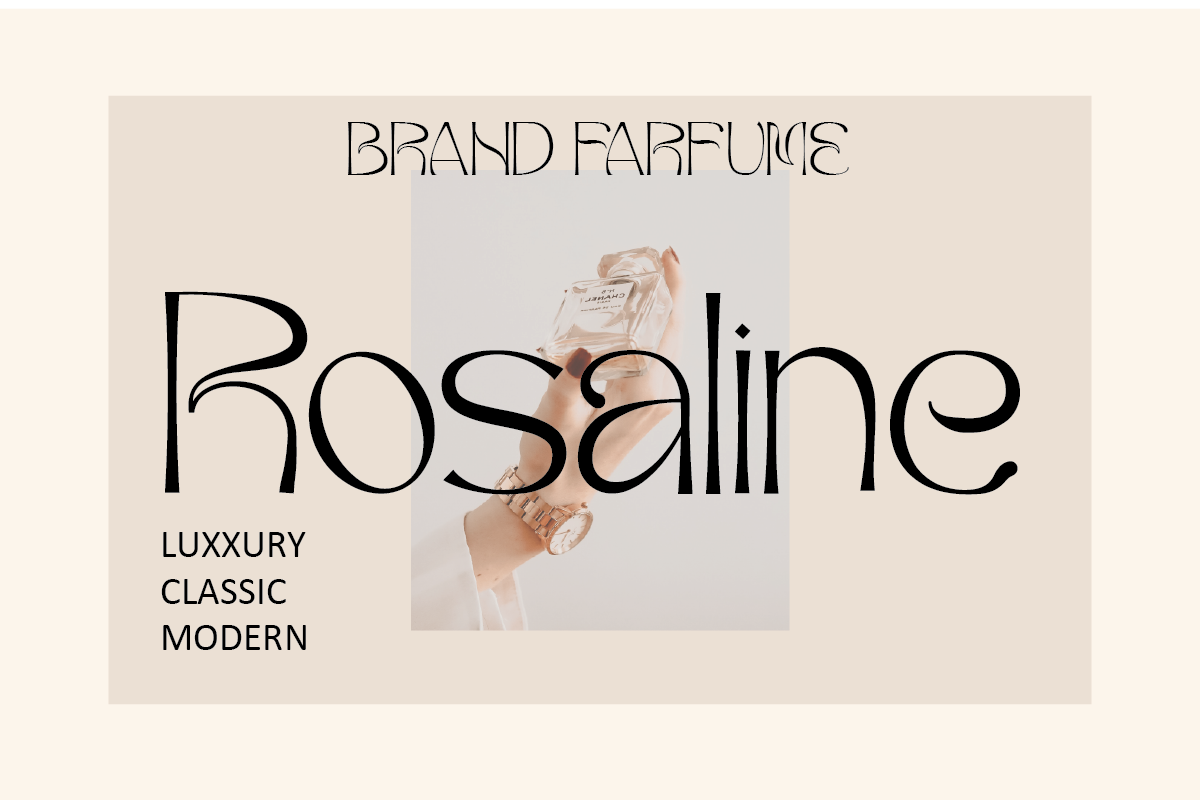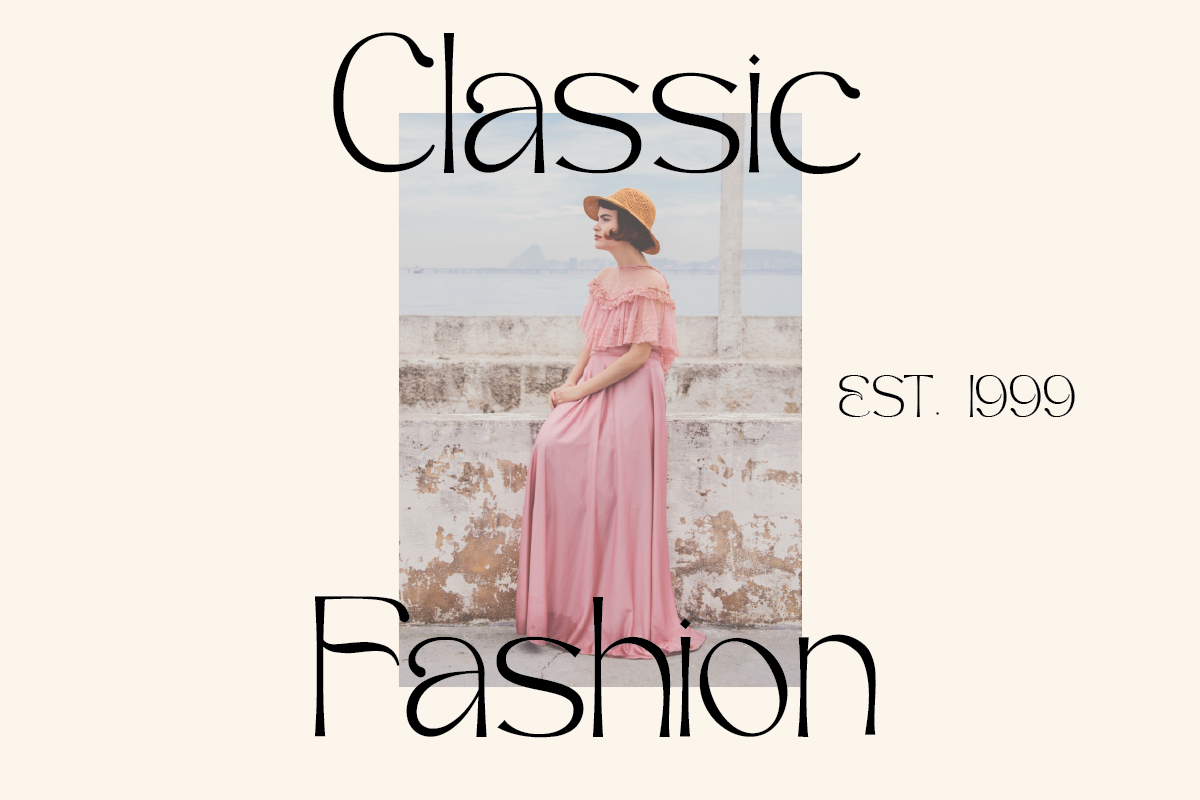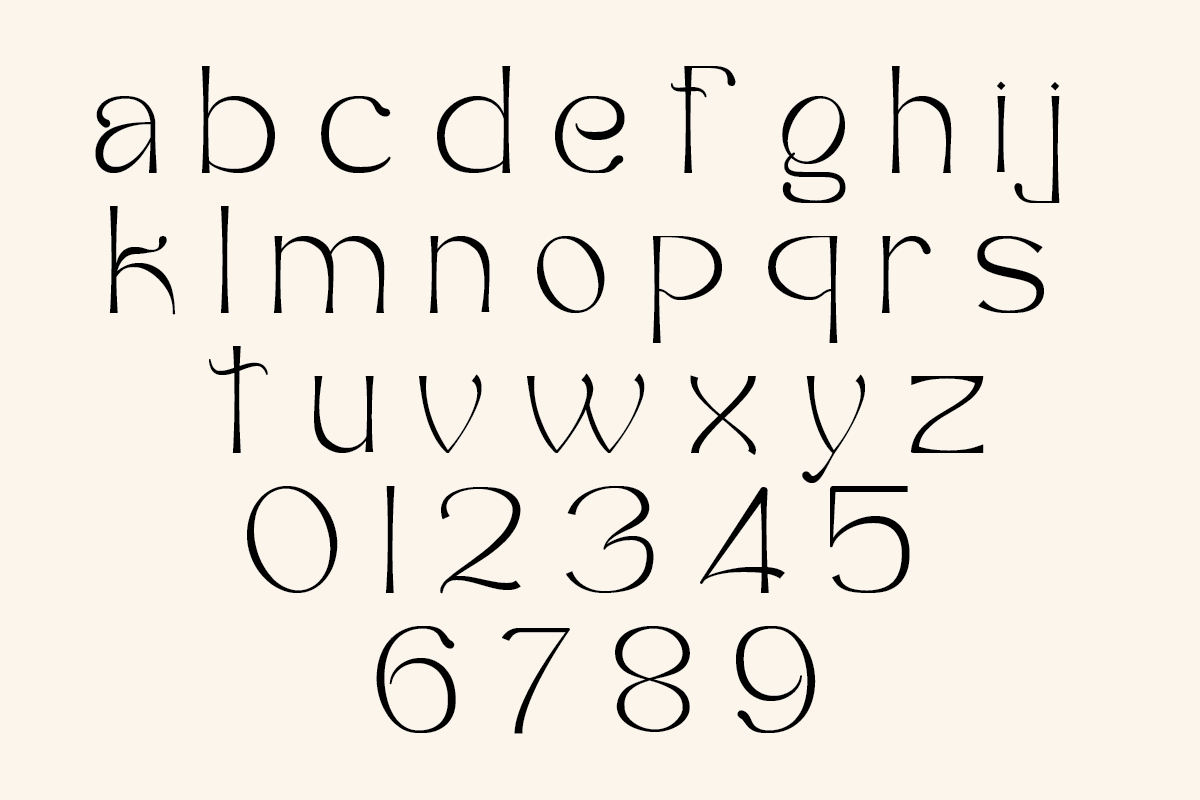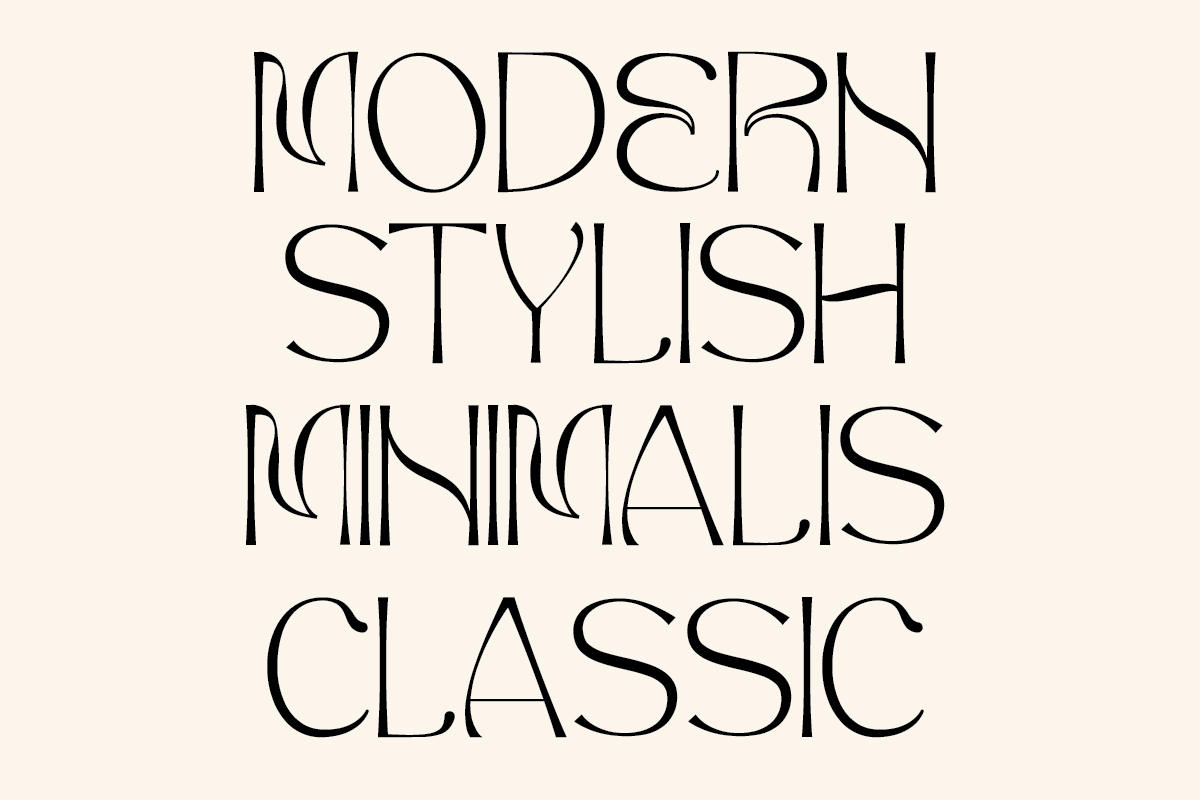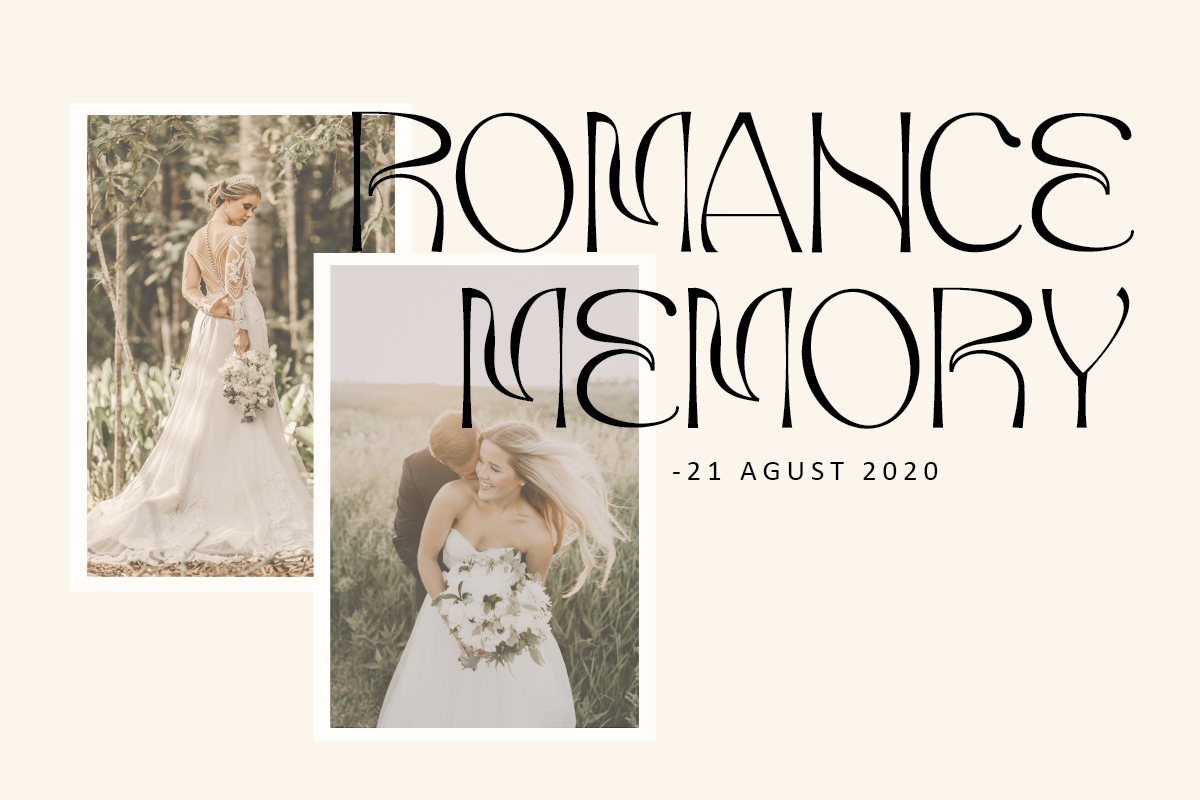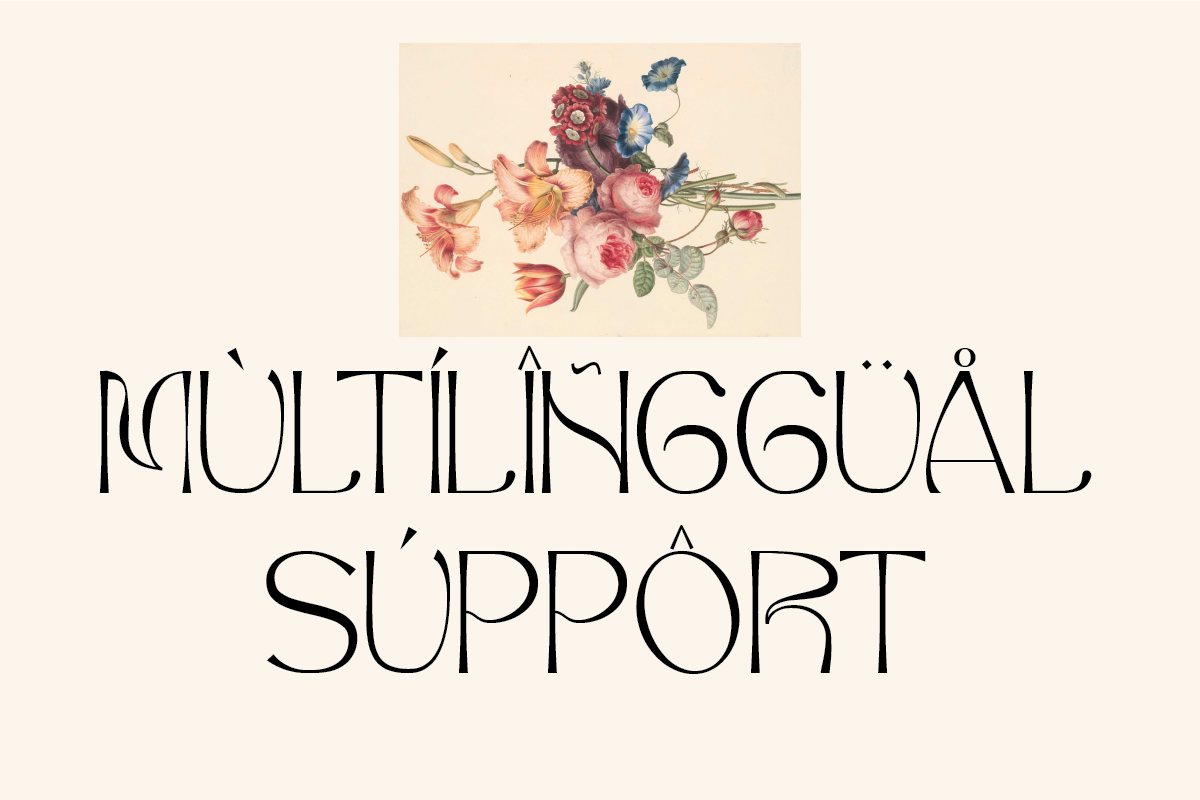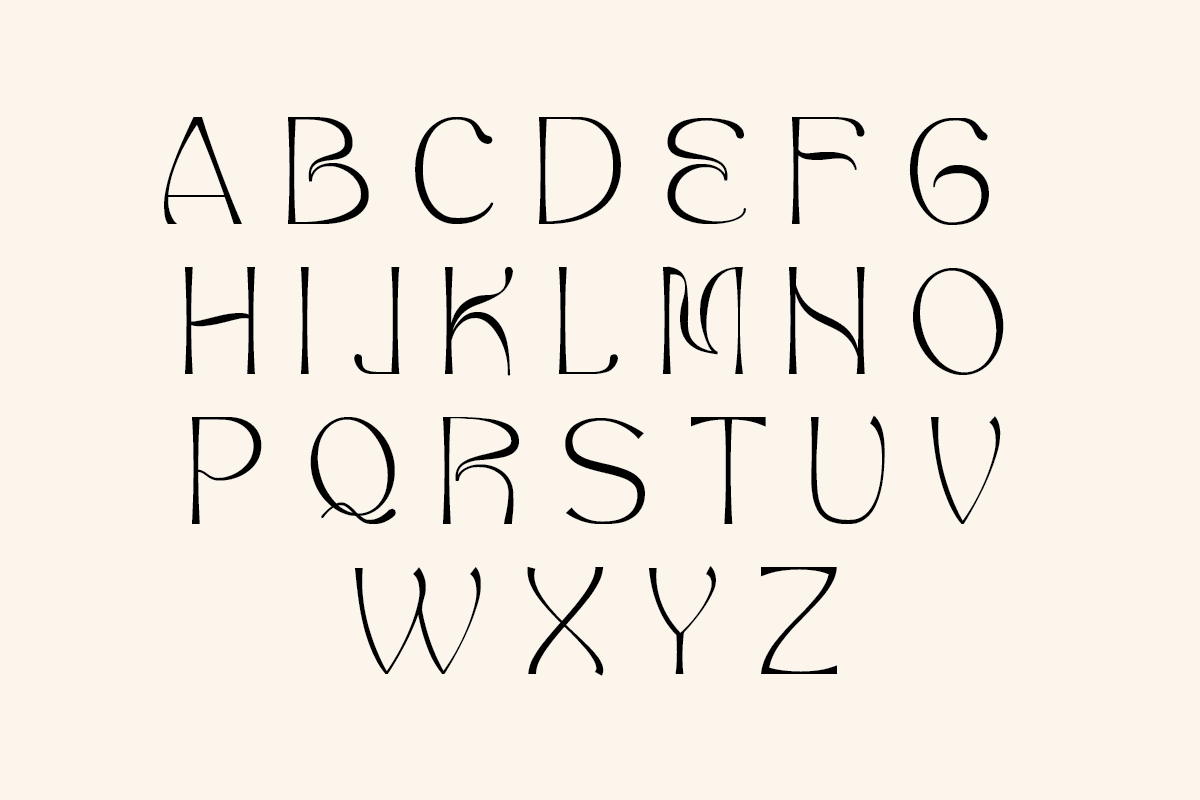
Egalie
Egalie is a modern display font that is both memorable and stylish.It's a mix between a classic serif and a futuristic sans serif. Gallery comes with a full uppercase, lowercase, numbers and punctuation + European language support. This font is perfect for fashion related branding or editorial design and displays both masculine, feminine qualities and Perfect for editorial projects, Logo design, Clothing Branding, product packaging, magazine headers, or simply as a stylish text overlay to any background image.